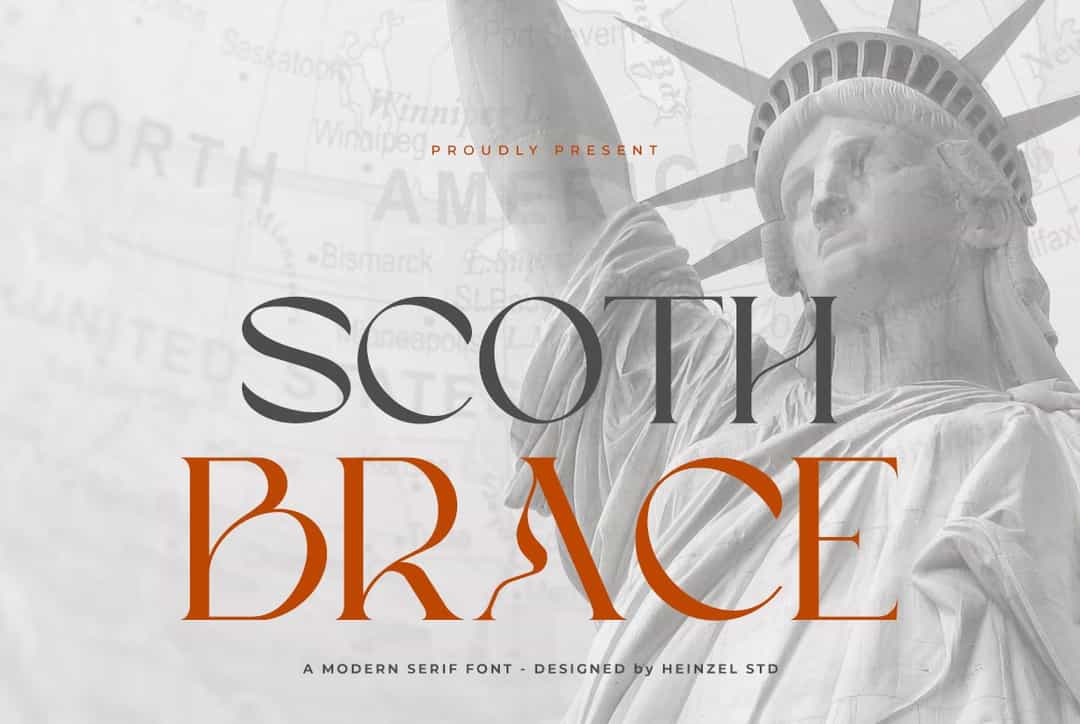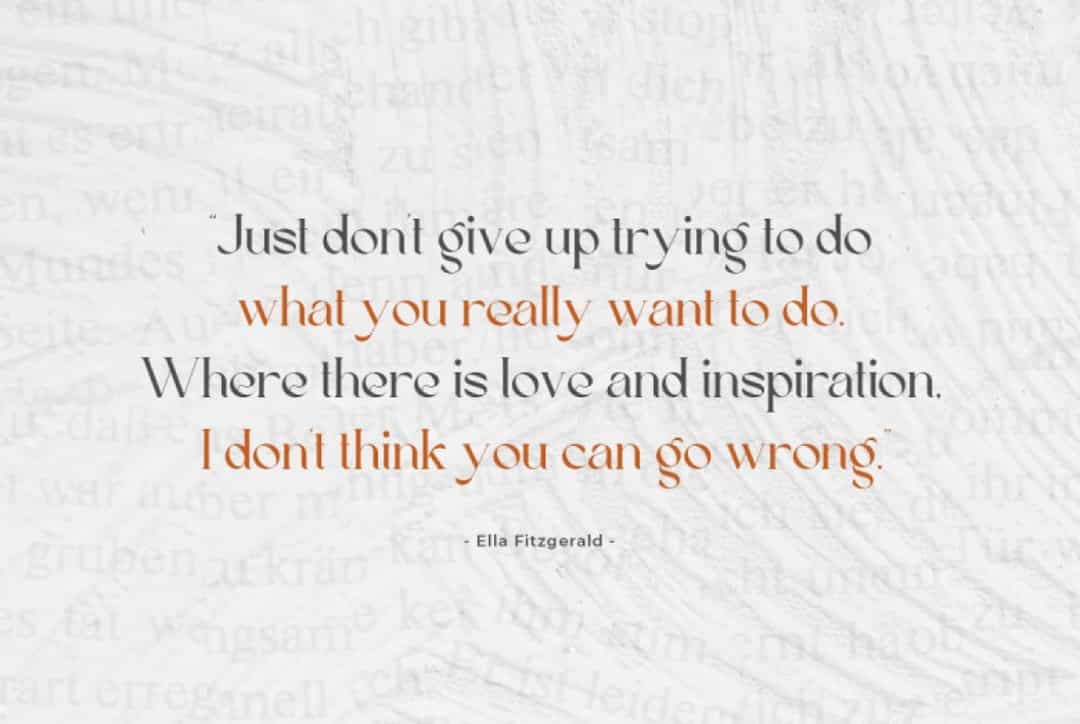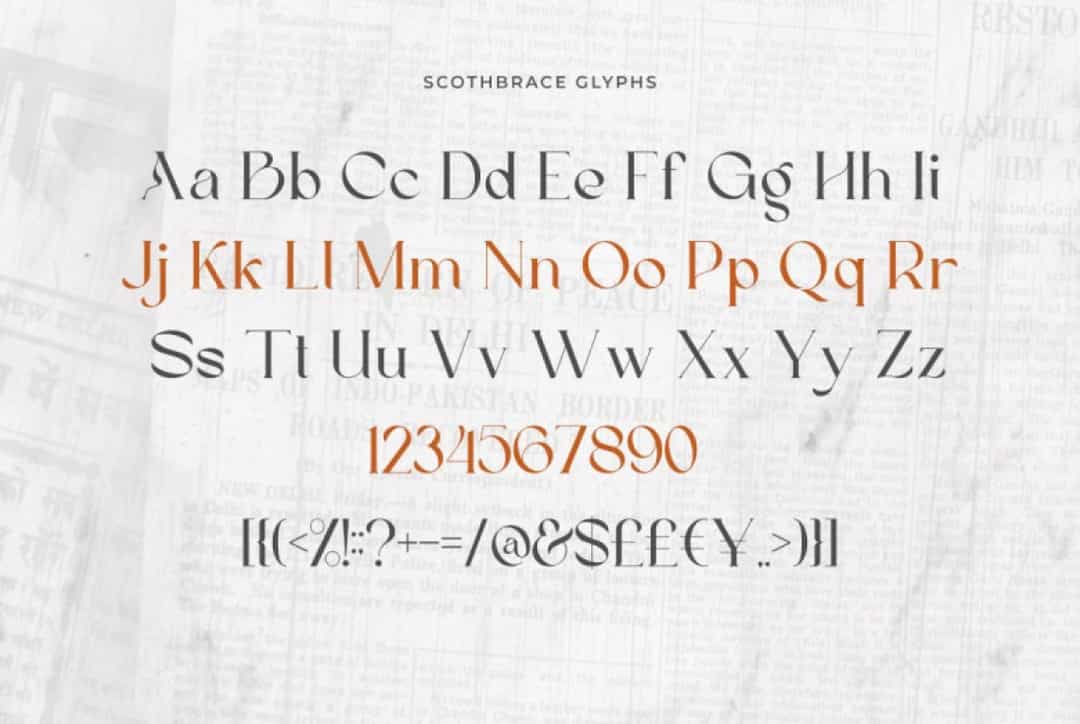
Scoth Brace is an elegant and contemporary serif font with an attractive modern and stylish design, captivating you by its eye-catching style and perfect for creating elegant logos, headlines for wedding invitations, branding stationary, social network tweets or any other projects!